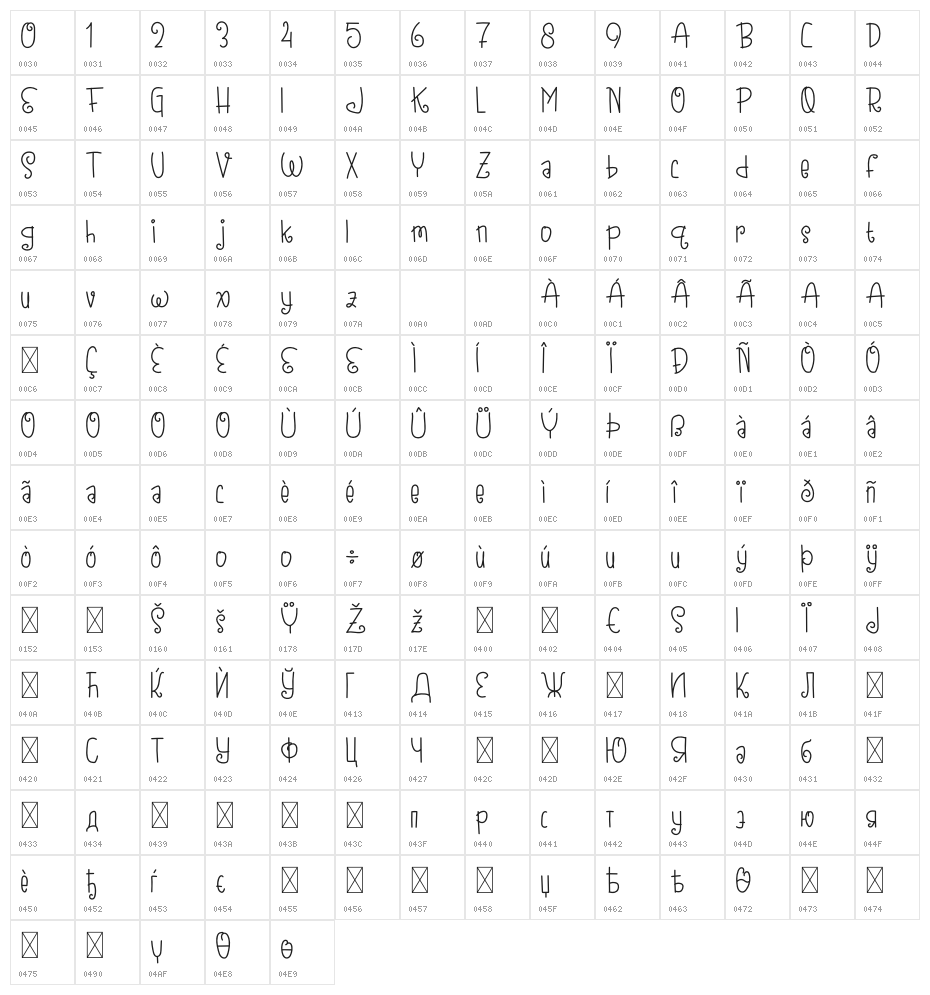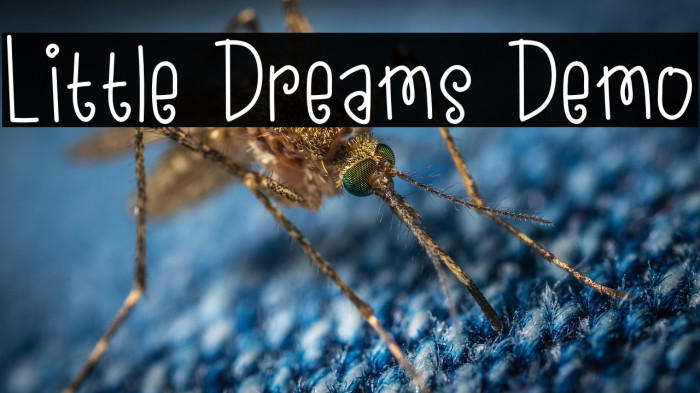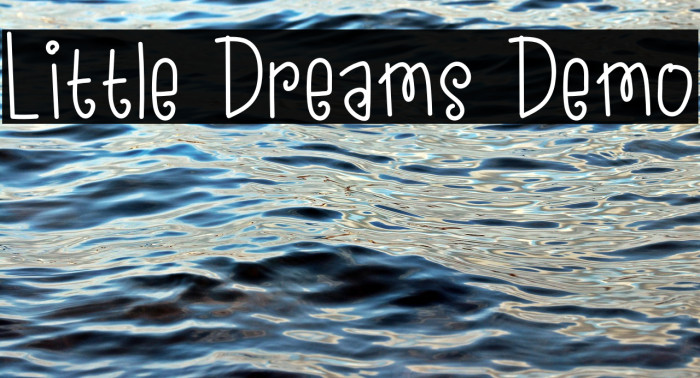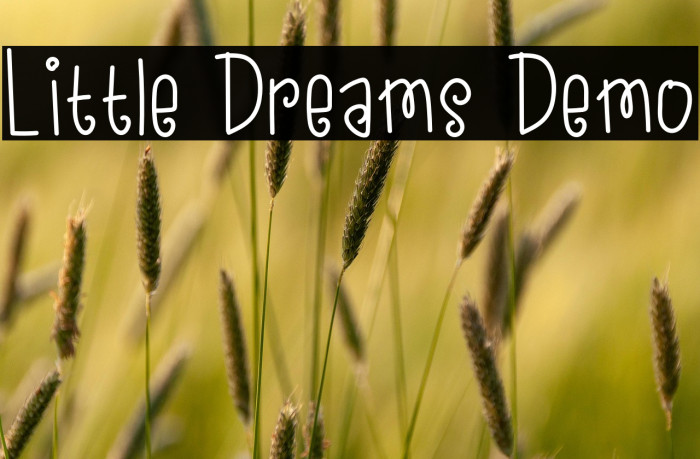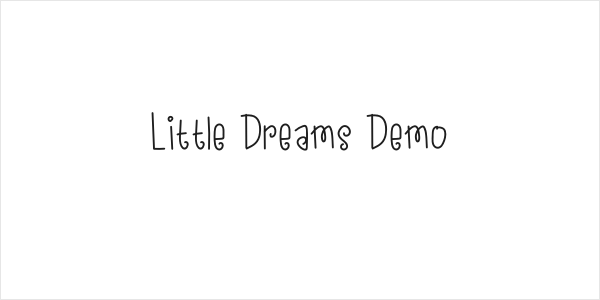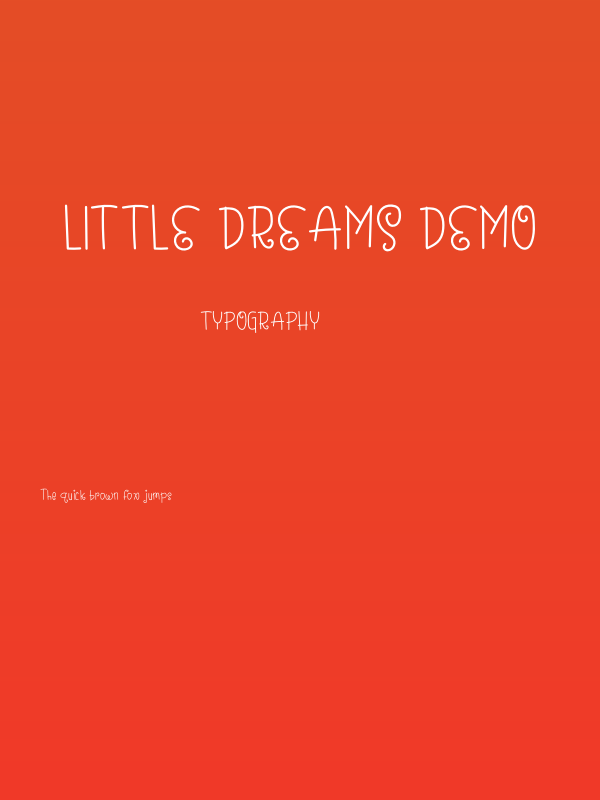
Little Dreams Demo Font
Little Dreams Demo Description
This whimsical and playful font features a handwritten style with a unique, artistic flair. The characters are tall and slightly irregular, giving them a charming, childlike quality. The uppercase letters are bold and expressive, with quirky loops and curves that add personality. The lowercase letters maintain the same playful aesthetic, with some letters featuring distinctive swirls and curls. The numbers are consistent with the overall style, offering a fun and approachable look. The font's overall appearance is casual and friendly, making it ideal for projects that require a touch of creativity and warmth.
| Proposed Projects | Ideal for children's books, greeting cards, playful branding, and creative posters. |